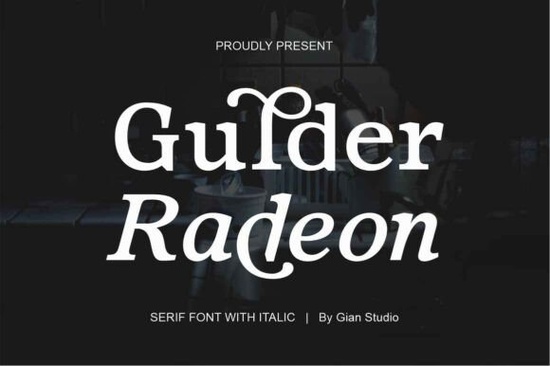
If you're looking for a serif font that brings both classic elegance and modern flexibility to your projects, Gulder Radeon Font is a strong contender. Designed by Yusliana and published by Gian Studio, this typeface blends timeless structure with subtle contemporary flair perfect for anyone who values clean lines, expressive detail, and professional results.
What Makes Gulder Radeon Stand Out?
Gulder Radeon isn’t just another serif font it’s built with thoughtful design in mind. It features two main styles: upright and italic, each with swollen stems that add visual rhythm and depth. The italics don’t just slant they flow naturally, growing alongside the character shape for a cohesive look across text blocks.
Plus, there are two variable versions Regular and Italic so you can adjust weight and width on the fly. This makes it ideal for exploring different moods in your designs without switching fonts.
Powerful Features for Real-World Design Work
Thanks to OpenType support, Gulder Radeon includes advanced typographic features like ligatures and multilingual character sets. That means your text stays polished whether you’re working in English, French, German, or other languages commonly used in branding and editorial work.
These features aren’t just technical perks they help you produce cleaner, more professional layouts faster. Whether you're designing a magazine cover, crafting a brand logo, or laying out packaging, the attention to detail in this font shows.
Where Can You Use Gulder Radeon?
This versatile font works well in many areas of design:
- Editorial design – Headlines, pull quotes, and article titles gain impact with its strong presence.
- Branding & logos – Its balanced proportions make it suitable for both bold statements and refined identities.
- Packaging & product labels – The expanded strokes give it a premium feel on physical goods.
- Web design – With variable options, it adapts smoothly to responsive layouts.
- Print-on-demand projects – Great for t-shirts, mugs, posters, and stationery where readability meets style.
It handles both short phrases and longer body text with grace, making it a reliable choice from concept to final output.
Why Designers Choose This Font
Designers often look for fonts that offer reliability and flexibility. Gulder Radeon delivers on both. Its natural flow between upright and italic forms reduces the need for manual adjustments, saving time during production. The variable weights also mean you can fine-tune contrast and spacing without needing multiple files.